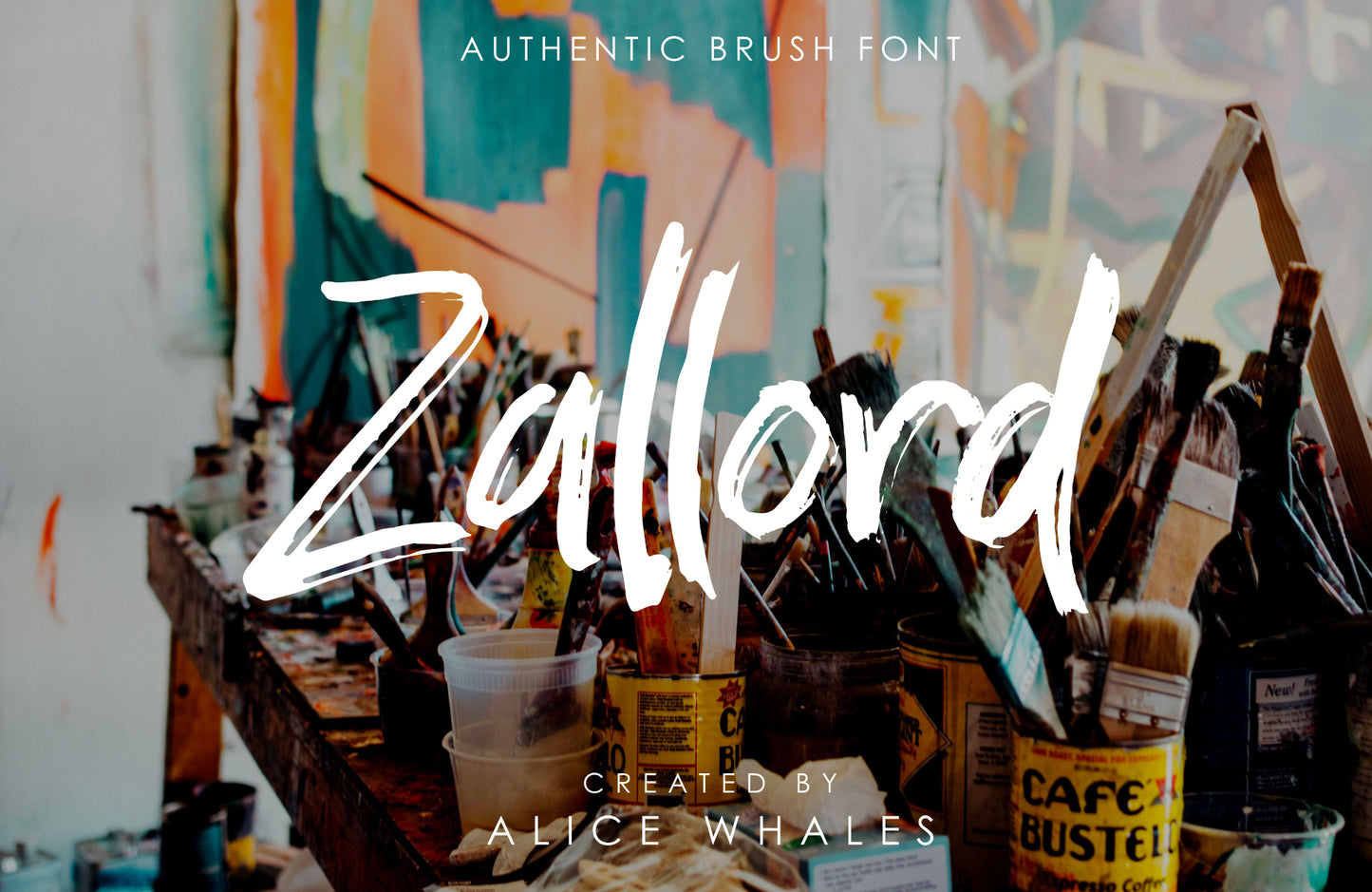
Free Zallord Handwritten Brush Font
Download and enjoy this free zallord – handwritten brush font. Cool typeface to showcase your designs in a modern way. Download this free font from the original source of Pixelify. You can create a professional designs with this fancy font.